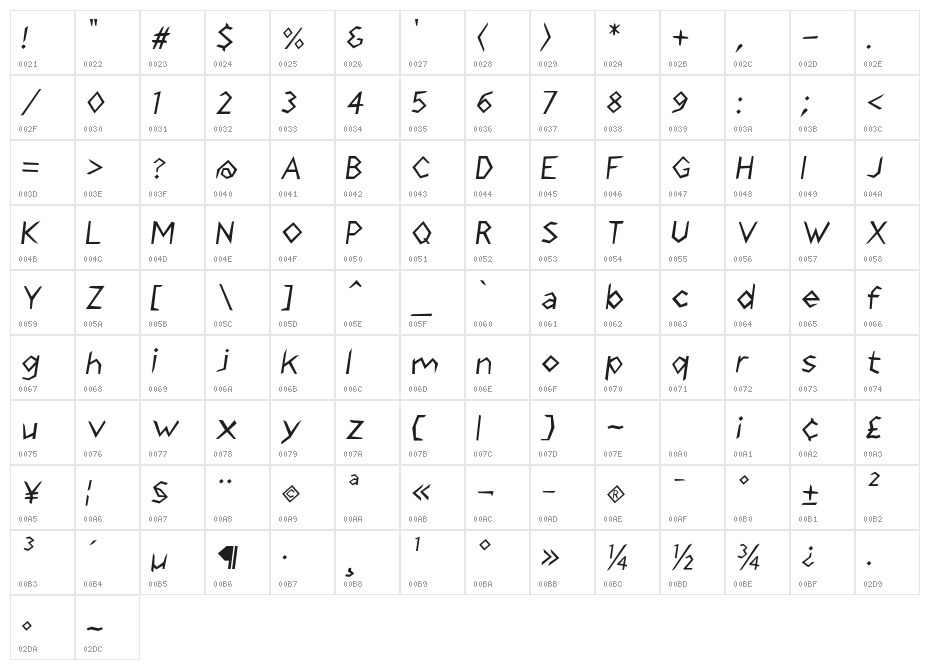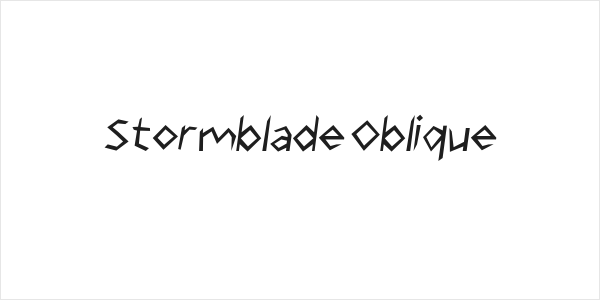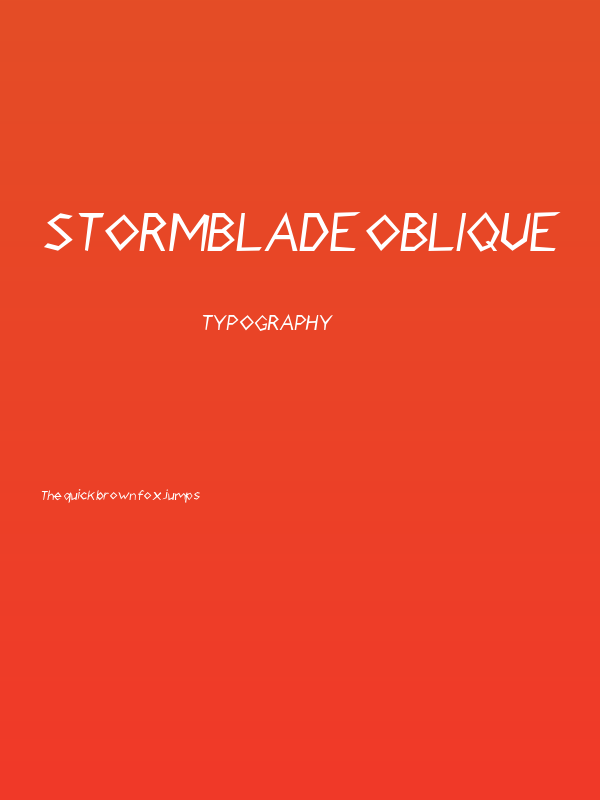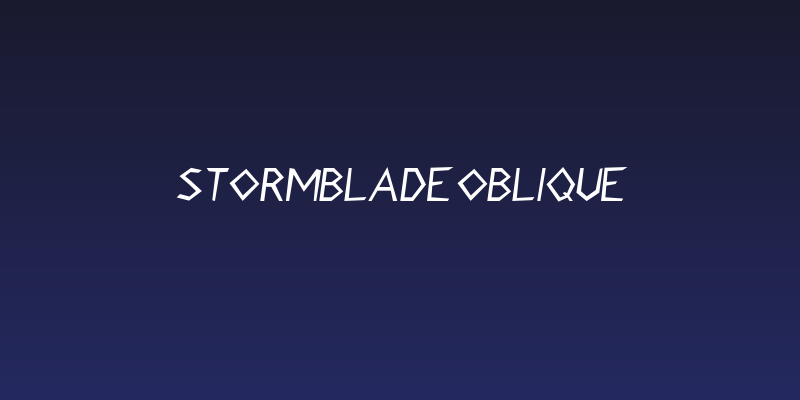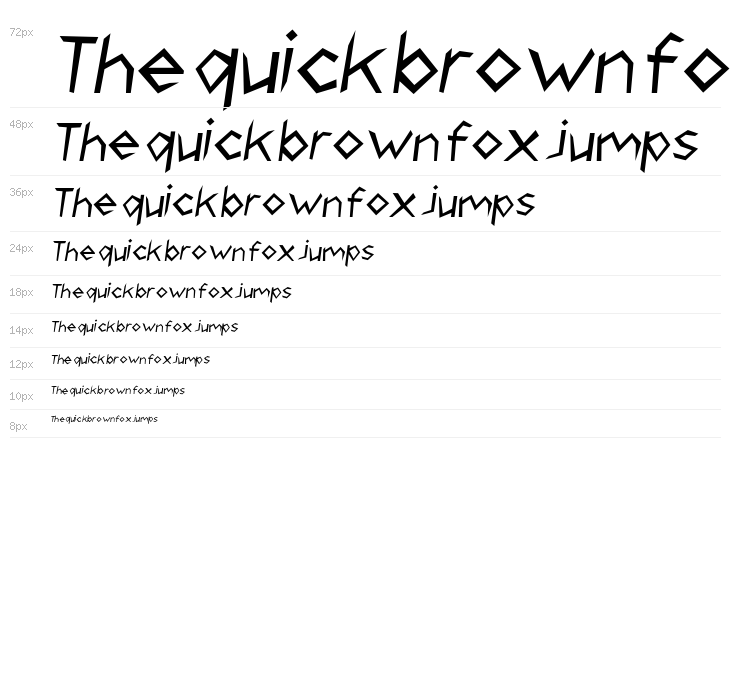
Stormblade Oblique Font
Stormblade Oblique Description
This font features a dynamic and angular design, characterized by sharp edges and a forward-leaning oblique style. The letters are crafted with a sense of motion and energy, making them appear as if they are slicing through the space they occupy. The uppercase and lowercase letters maintain a consistent angularity, while the numerals and special characters complement the overall aesthetic with similar sharpness. The font's unique style is both modern and edgy, suitable for projects that require a bold and striking visual impact.
| Proposed Projects | Ideal for video game titles, action movie posters, sports branding, or any project needing a bold, energetic typeface. |